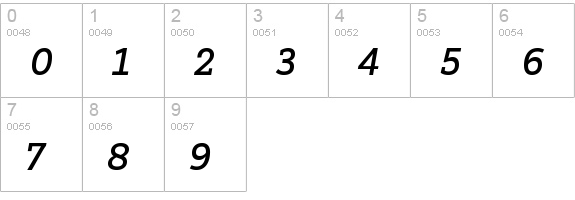
Brix Slab Medium Italic is a balanced, medium-weight, italic variant in the Brix typeface family \xE2\x80\x94 well suited to sub-headlines, navigation, and balanced editorial work.
Brix Slab Medium Italic font strikes the perfect balance between modern sophistication and classic elegance. Its sleek and stylish design exudes a sense of confidence and professionalism, making it the ideal choice for a wide range of design projects. The medium weight adds just the right amount of emphasis, while the italic styling adds a touch of flair and personality. What makes Brix Slab Medium Italic font even more appealing is that it is available for free download at FontsMarket.com. This means that you can add this versatile and eye-catching font to your collection without having to spend a dime. Whether you're working on a branding project, a website design, or a print advertisement, Brix Slab Medium Italic font is sure to elevate your work and make a lasting impression. Download it today and see for yourself the impact it can have on your designs.